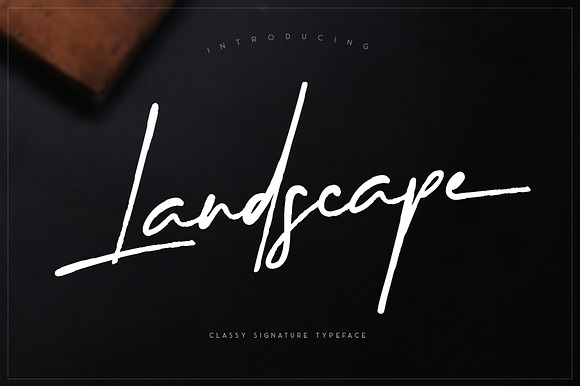
Landscape Signature Font
Landscape Signature Font by Rochart is a font selected for branding, posters, packaging, typography.
Why Landscape Signature Font is worth a look
Landscape Signature Font by Rochart fits naturally into Branding, posters, packaging, typography.